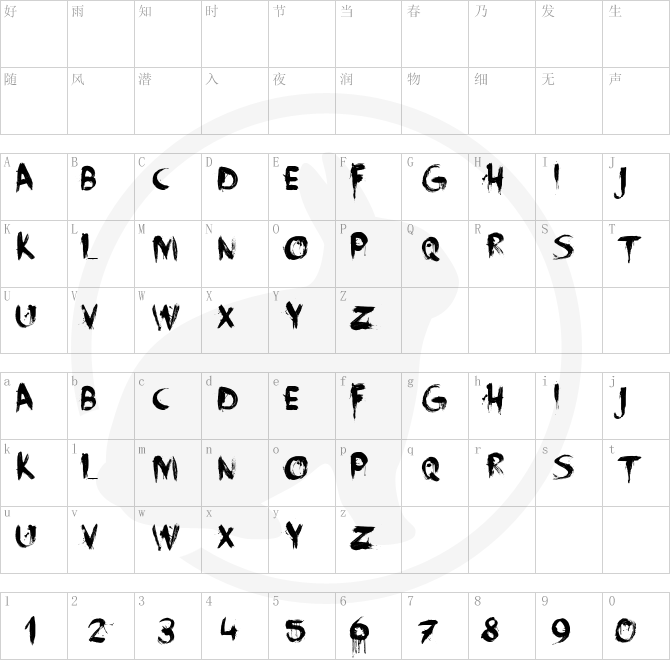
- Font Name:Face Your Fears
FaceYourFears.ttf is a very beautiful artistic font, FaceYourFears.ttf is widely used in the design and printing of various books and pictures,FaceYourFears.ttf has a strong visual impact,FaceYourFears.ttf is a commonly used font in newspapers, magazines and books, and is used in posters, e-commerce Poster design, store design, logo design, font design and other fields.FaceYourFears.